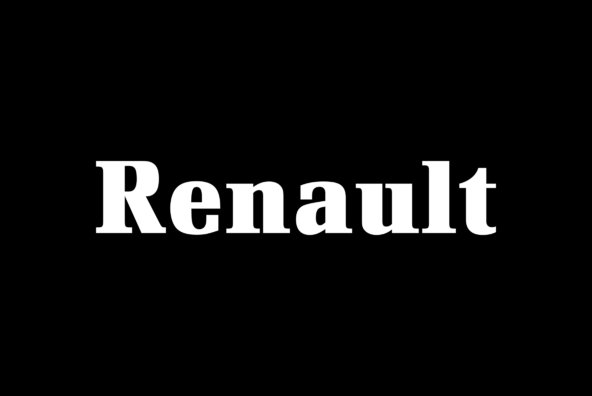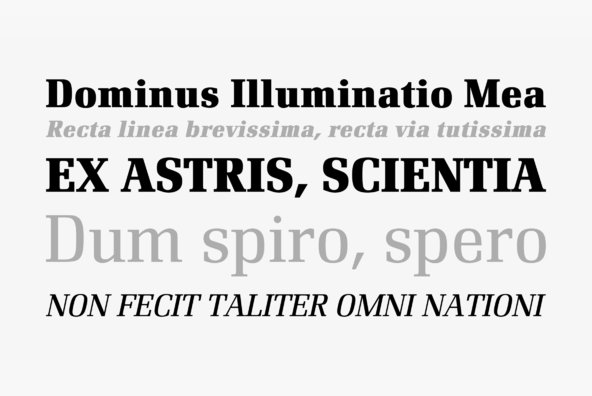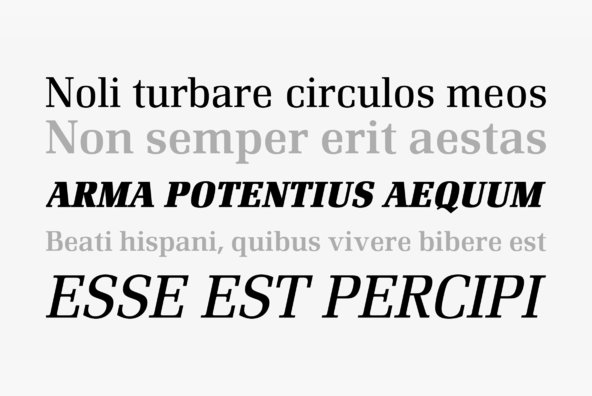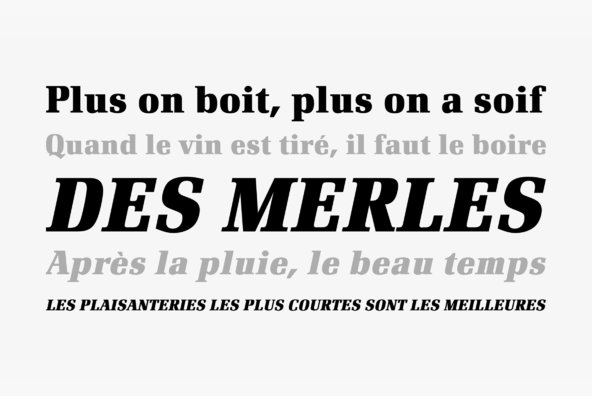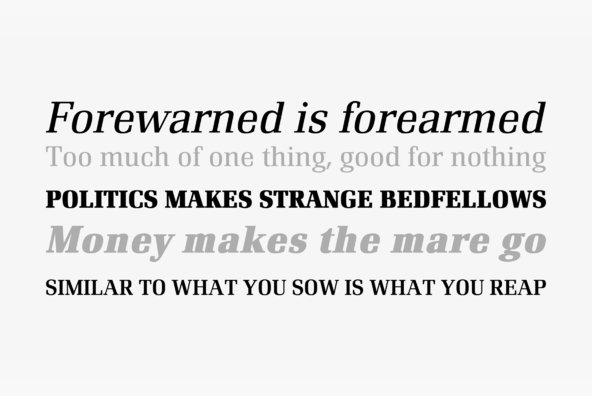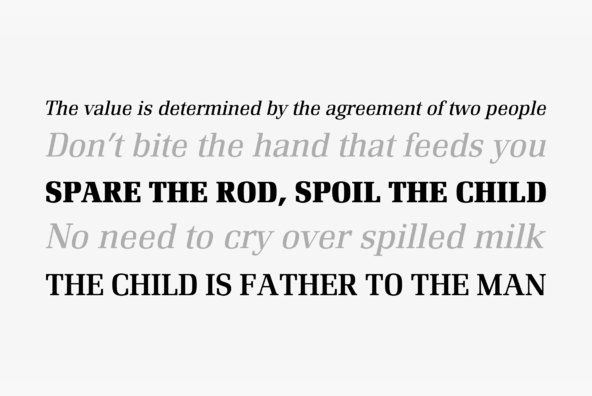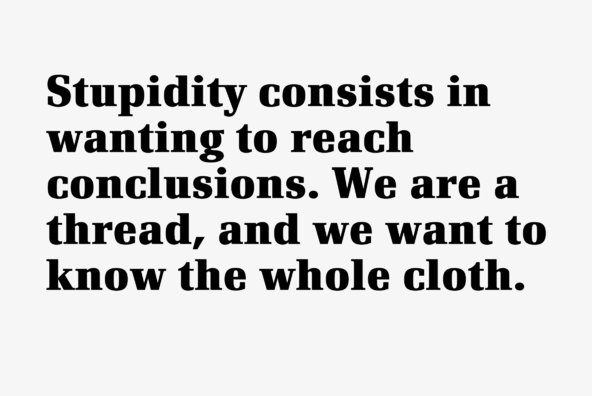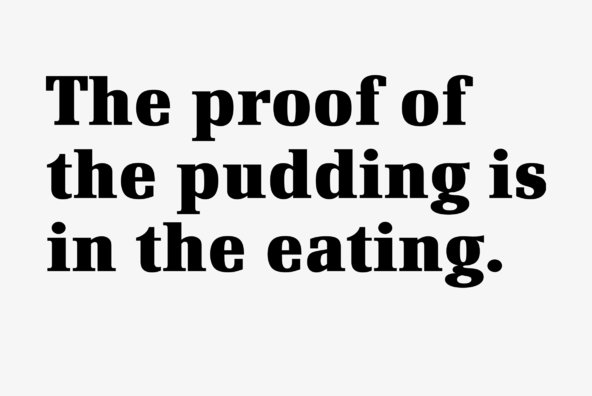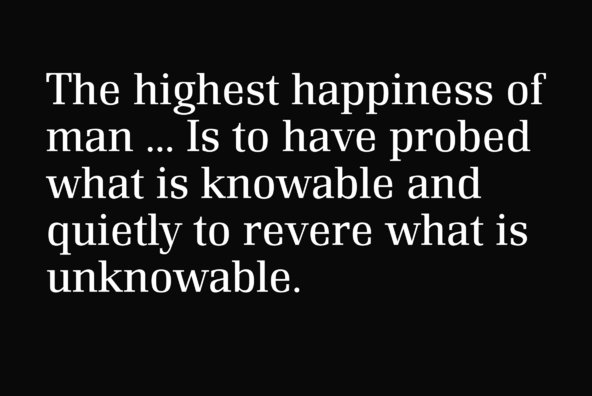
Renault
Commissioned by Renault, the French automaker, this font was originally designed by Wolff Olins in 1978. Works wonderful in classic and corporate design layouts.